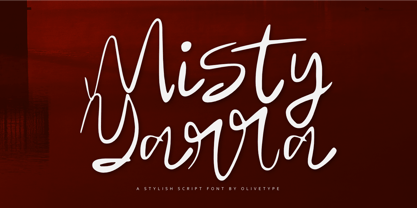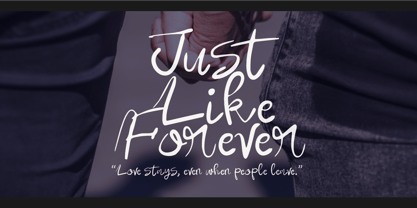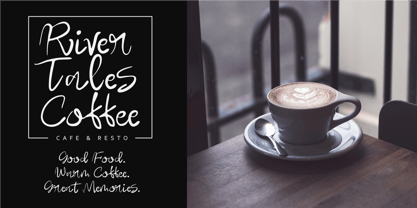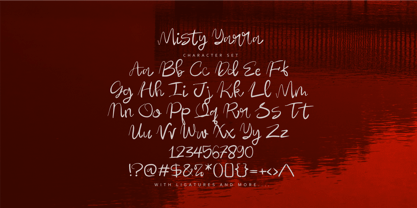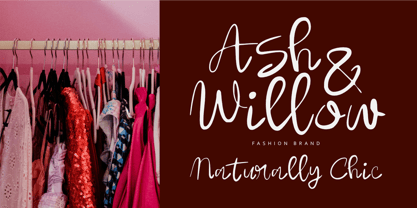
Misty Yarra
La famille de polices Misty Yarra a été conçue par Nurul Hidayani et publiée par Olivetype. Misty Yarra contient 1 styles. En savoir plus sur cette famille
Misty Yarra is a chic and stylish script font with a romantic feel and graceful handwritten flow. Designed with elegant curves and modern signature details, this font brings a natural touch to every design. Perfect for logos, branding, wedding invitations, fashion editorials, social media, packaging, photography, beauty products, café branding, and feminine marketing projects. Misty Yarra combines classy aesthetics with a warm artistic personality, making it ideal for creating timeless and sophisticated visuals with effortless charm.